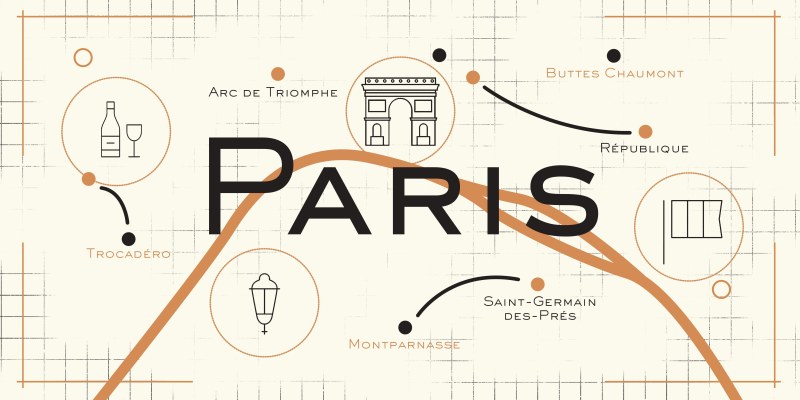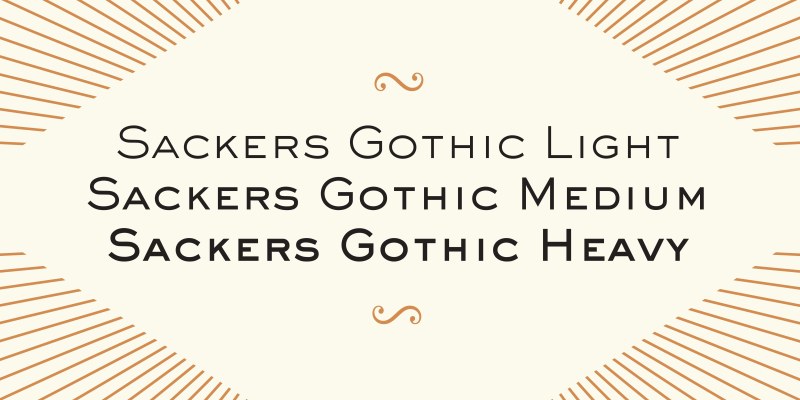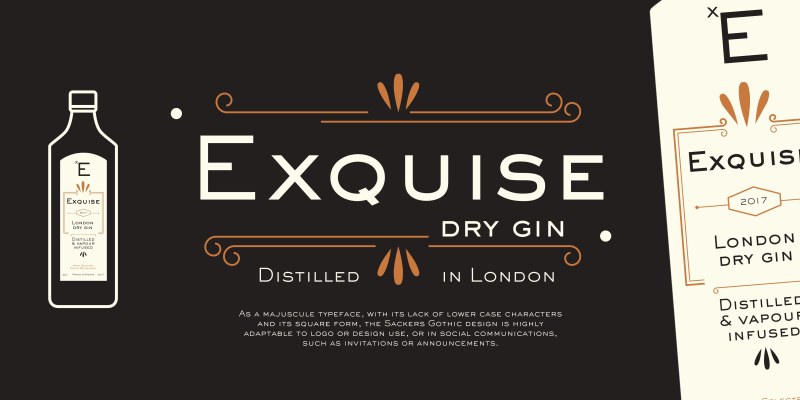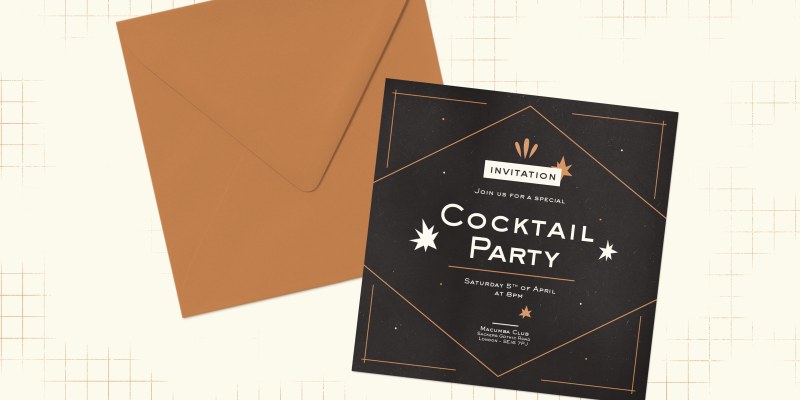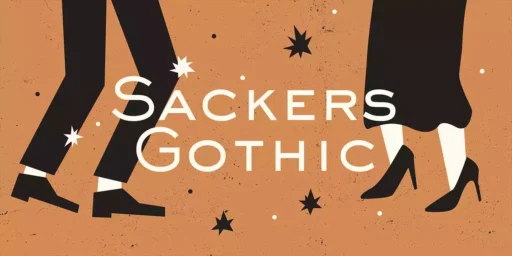
Sackers Gothic Font
Sackers Gothic is a classic font with timeless appeal. It is well-known for its elegant and refined design, initially created by the British type foundry H. Berthold AG. This typeface draws inspiration from the geometric sans-serif typefaces that emerged during the early 20th century, particularly the work of type designer Paul Renner.
Clean lines, minimal geometric shapes, and harmony of proportion define the structure of Sackers Gothic. It gives an impression of contemporary elegance, but at the same time, it remains timeless, making it applicable for a variety of design uses.
Versatility is one of the distinctive characteristics of Sackers Gothic. It can be found in various weights and styles, starting from light Light and ending with bold Black, supported by italics. Such a wide variety of choices enables designers to produce many typographic hierarchies and visual contrasts.
Sackers Gothic’s elegance and legibility allow its use in branding, editorial design, signage, and corporate identity systems. Its clean and minimalist design guarantees legibility even at smaller sizes, and its sophisticated aesthetic brings a touch of elegance to headlines and display text.
Apart from its visual attractiveness, Sackers Gothic also provides functional space. It supports multiple languages and offers a wide range of OpenType features, among which ligatures and alternative characters are prominent. These options give typographers extra facilities for tweaking and improving typographic compositions.
In summary, Sackers Gothic is a universal and eternal font that is preferable among designers as a neat, contemporary, and stylish sans-serif alternative. Its simplicity, legibility, and subtle design make it a dependable option for numerous design projects, from classic print applications to digital interfaces.